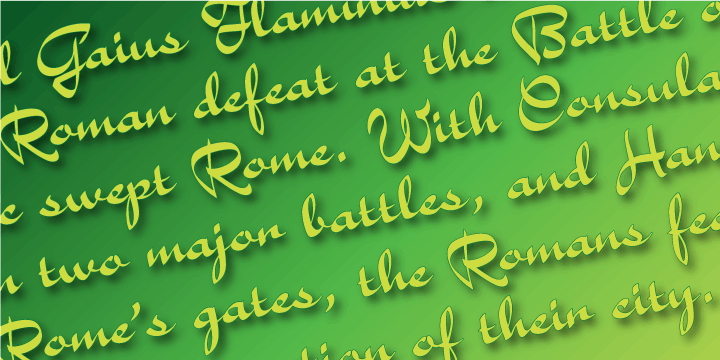
A flat pen script font face with a fairly elegant look to it.
The design of this script was intended to be used anywhere a well legible script is called for. A heavy stout script is the perfect display face which has a 30s and 40s flair that will add class.
Suitable for applications such as captions, fashion headlines, packaging, invitations, cards, posters, ads, book jackets and covers.